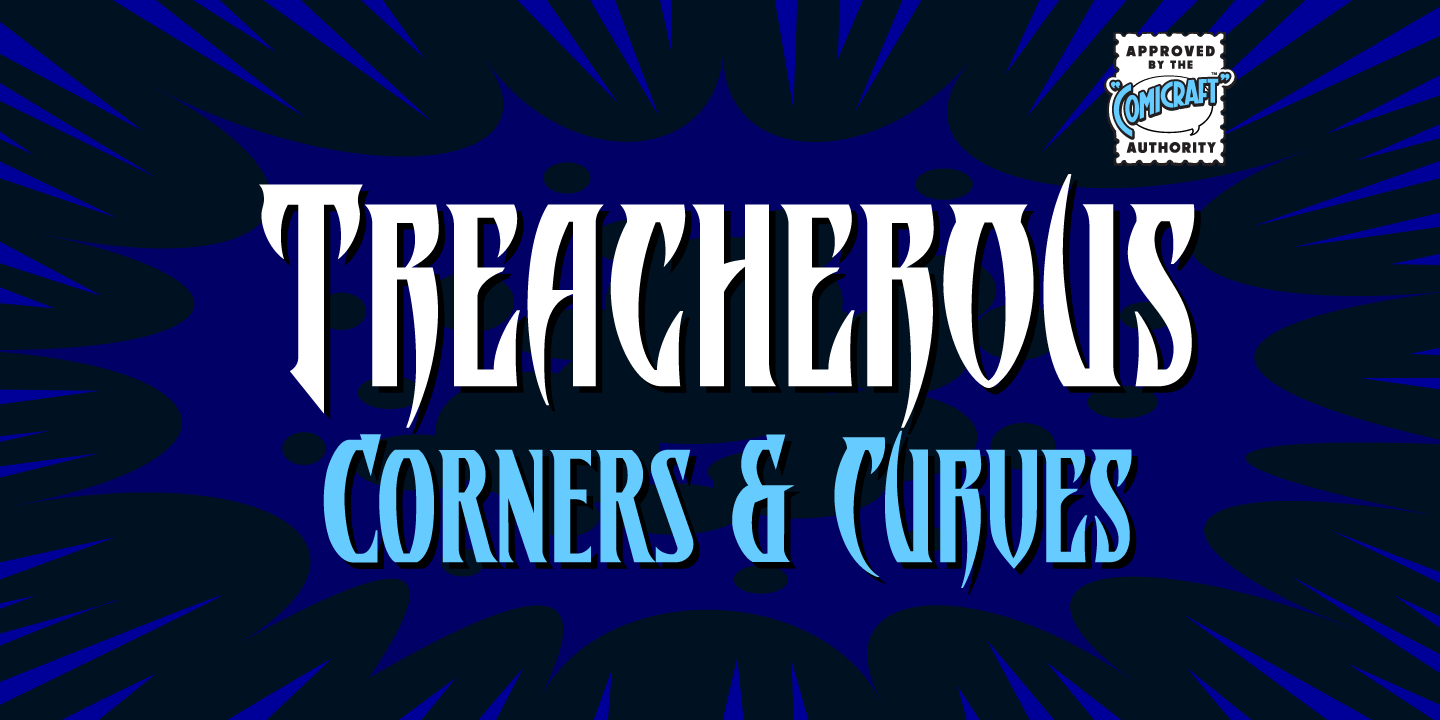
Treacherous Font is perfect for horror movie titles, thriller novel covers, dark gaming interfaces, haunted attraction signage, gothic event promotions, sinister brand identities, suspenseful advertising campaigns, ominous warning graphics, dramatic theater materials, and menacing entertainment venues.
Treacherous Font is exciting because it masterfully captures the essence of danger and psychological tension through its menacing, shadow-laden letterforms that evoke feelings of suspense and unease while delivering messages with dark theatrical power and spine-chilling authority.
Treacherous Font family includes Regular, Bold, Light, Shadow, Italic, Condensed, Distressed, and Nightmare variations, providing designers with a complete dark arsenal to create ominous visual communications that command attention through fear and fascination across sinister applications.
Treacherous Font embodies the primal psychology of fear and suspense, making it an indispensable tool for entertainment industries and brands that specialize in thrilling, suspenseful, and psychologically engaging experiences. This menacing typeface brings dramatic intensity to any design project, whether you're developing horror entertainment materials, creating thriller marketing campaigns, or designing immersive fear-based experiences. The deliberately unsettling character design of Treacherous Font Free Download ensures maximum psychological impact while maintaining excellent readability across both atmospheric print materials and digital applications that require typography capable of inducing genuine emotional responses.
Entertainment industry professionals consistently select Treacherous Font for horror productions, escape rooms, and thriller attractions because of its ability to instantly communicate danger, suspense, and psychological tension. The font's menacing appearance makes it particularly effective for targeting thrill-seekers and creating brand experiences that promise genuinely frightening and memorable encounters.
Treacherous Font dominates atmospheric entertainment environments where fear and excitement intersect. Haunted houses, horror gaming companies, and thriller film studios rely on this font to create materials that prepare audiences for intense psychological experiences while building anticipation for terrifying encounters.
The publishing and media sectors have embraced Treacherous Font for psychological thriller novels, crime documentaries, and dark mystery series. Its ominous visual character helps creators establish mood and atmosphere that draws audiences into dangerous fictional worlds, appealing to readers and viewers who seek sophisticated psychological entertainment and edge-of-your-seat storytelling experiences.